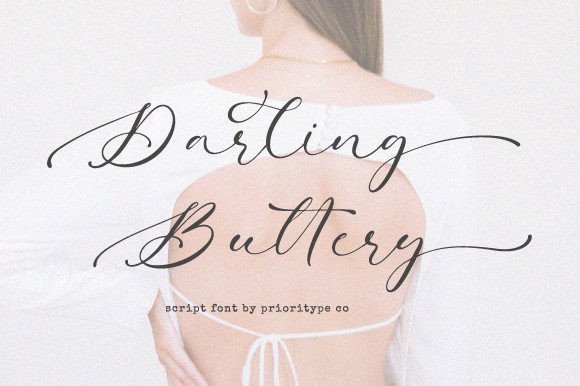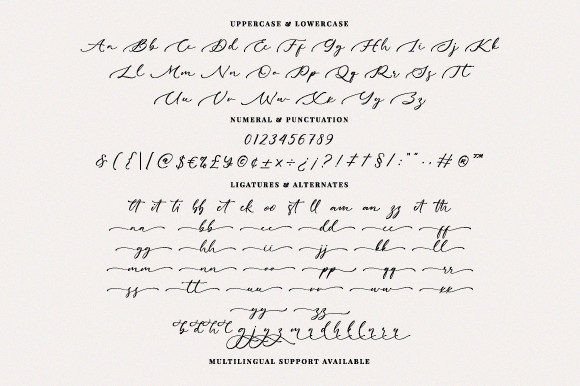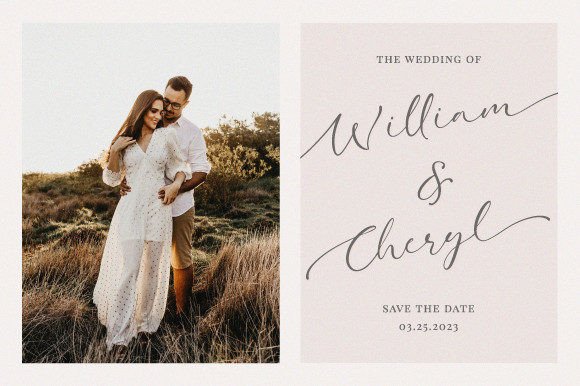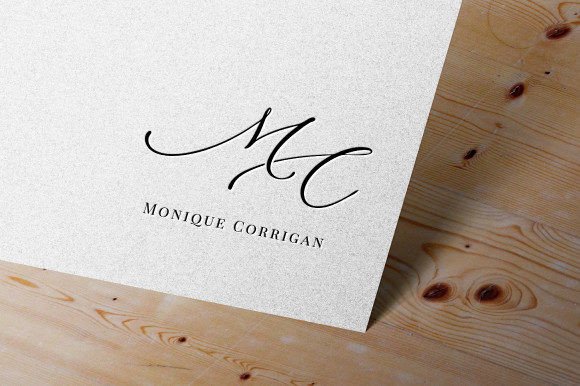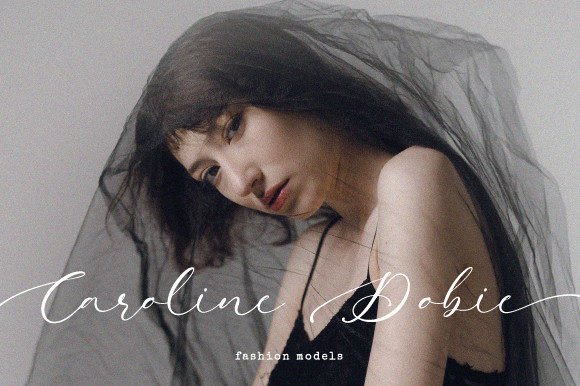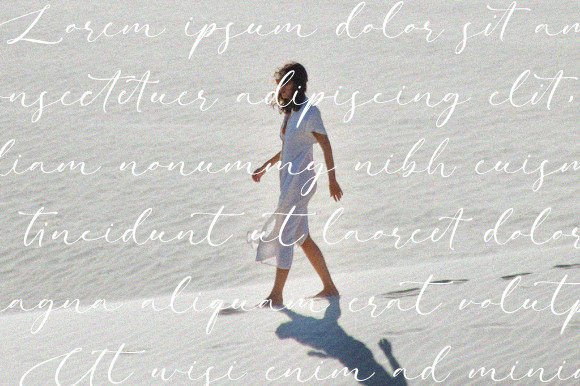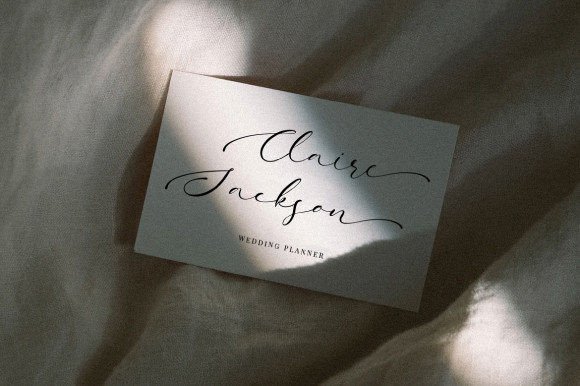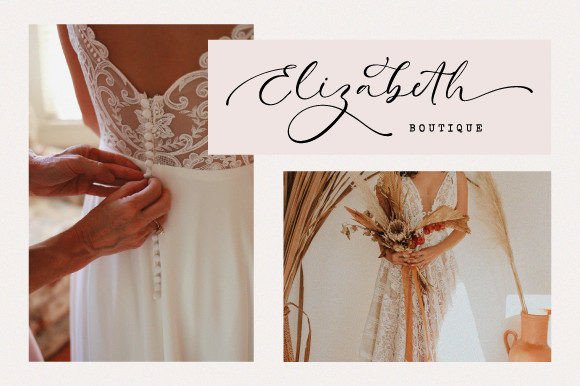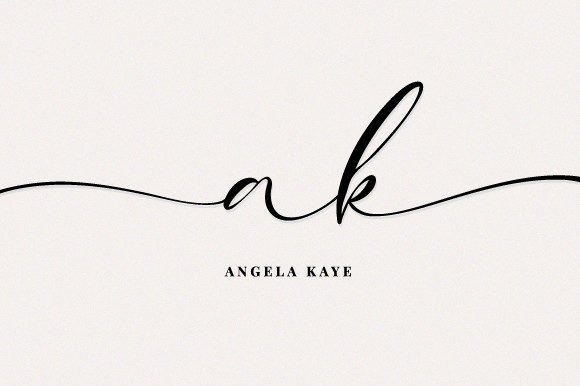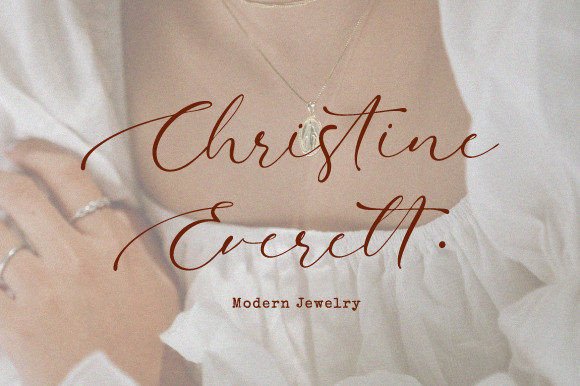
Darling Buttery Font
What Is Darling Buttery Font?
Darling Buttery Font is a modern script typeface crafted to bring elegance and style to your projects. Each letter has smooth curves and refined details that feel fresh while remaining timeless. Because of its clean, polished look, this font is perfect for designs that need a contemporary and graceful touch.
You will notice how easily Darling Buttery fits different creative styles and visual themes.
Darling Buttery is highly versatile and shines in many applications. For example, you can use it to create wedding invitations and event stationery. Its flowing script adds a romantic and sophisticated feel to every detail.
In addition, this font works beautifully for logos and branding. If you want your business to look stylish and memorable, Darling Buttery helps you make a lasting impression.
You can also apply it to product packaging, labels, and handmade goods. Even a simple design feels premium with this modern script.
When you design social media graphics or blog headers, Darling Buttery gives your content a professional yet warm personality. Even basic announcements or quotes look more engaging.
Moreover, it’s a great choice for greeting cards, posters, and personal projects. Your designs will feel cohesive, thoughtful, and eye-catching.
Why Should You Choose Darling Buttery Font?
There are many reasons to pick Darling Buttery for your next project. First, it’s easy to read in all sizes. Even small text stays clean and legible.
Also, this font pairs nicely with modern sans-serif or classic serif typefaces. This helps you build layouts that look balanced and fresh.
Designers appreciate that it looks polished right out of the box, saving time and ensuring professional results.
Darling Buttery Font brings sophistication and personality to every project. For example, when you want your work to feel modern and welcoming, this font makes it effortless.
Even minimalist layouts look more elegant with Darling Buttery’s smooth, flowing strokes. Whether you design invitations, branding, or social media content, your work will stand out.
Using a premium script font also shows your attention to detail and commitment to quality. This builds trust with your audience and makes your designs more memorable.
Darling Buttery Font is more than just a typeface—it’s a design asset that helps you share ideas with clarity and beauty. From weddings and logos to packaging and digital projects, this font adapts easily and leaves a lasting impression.